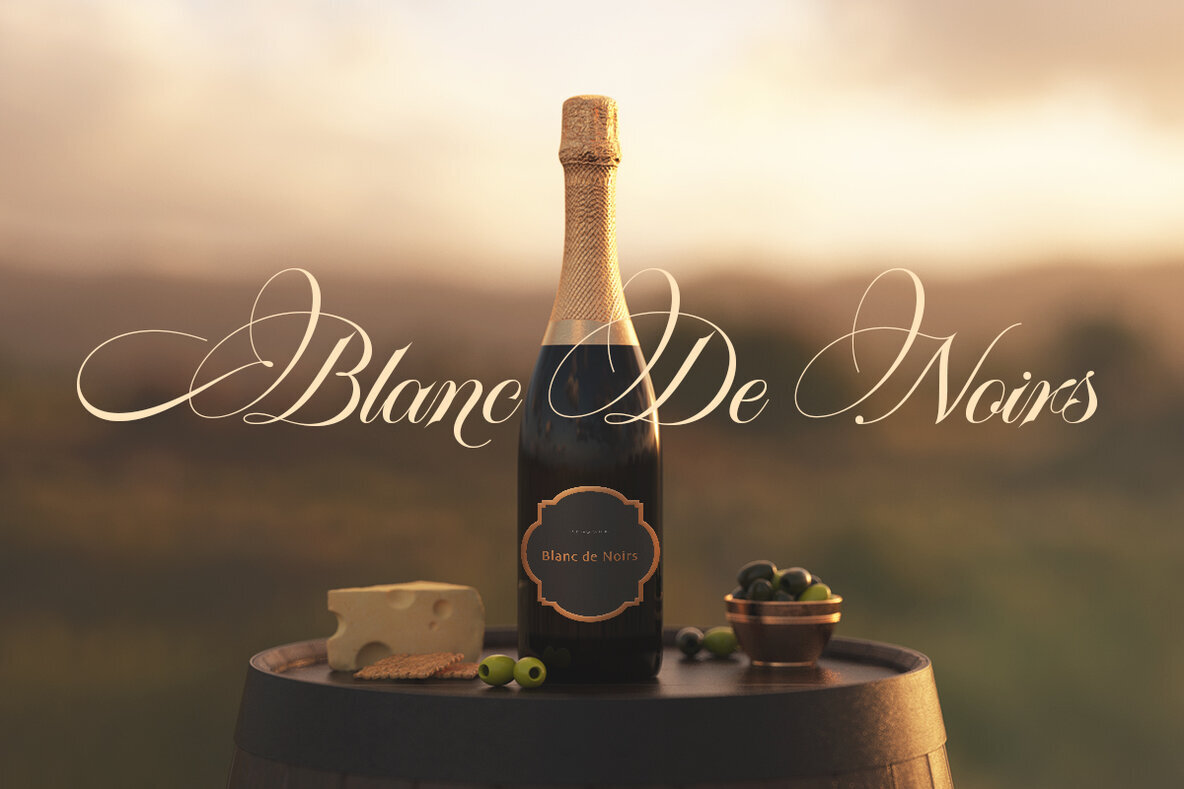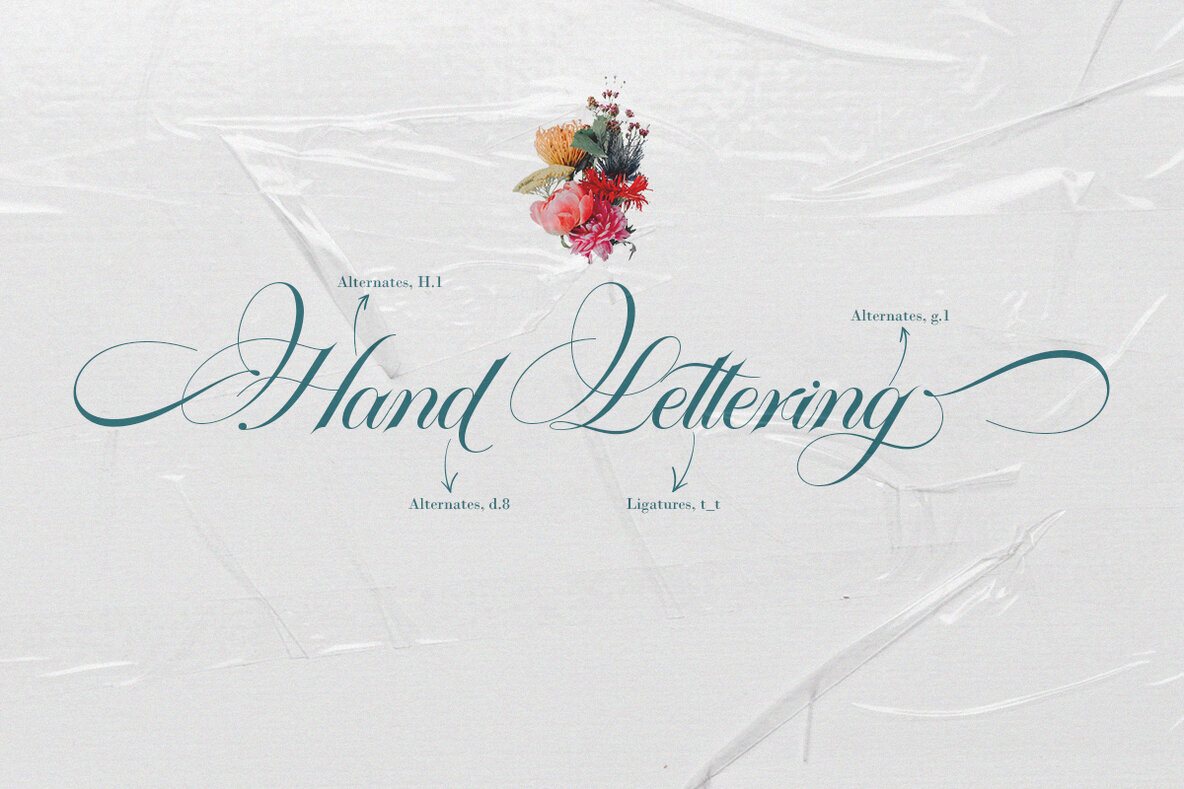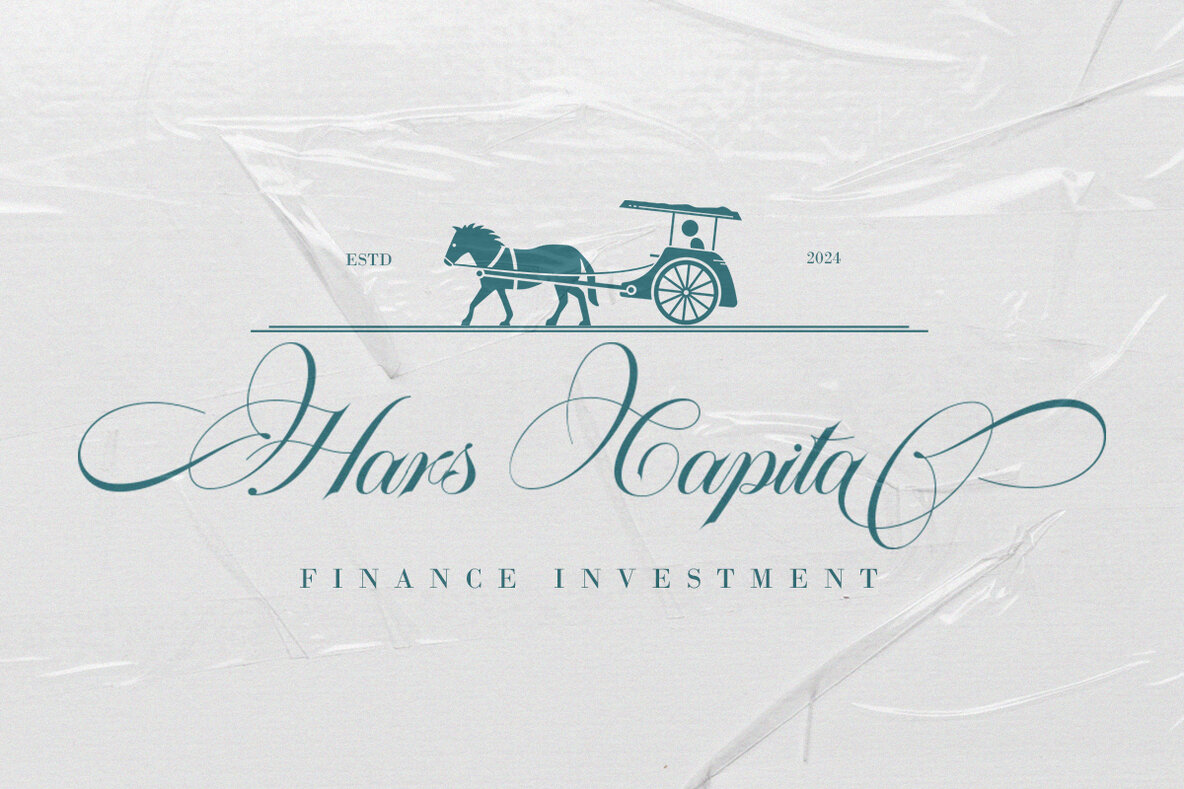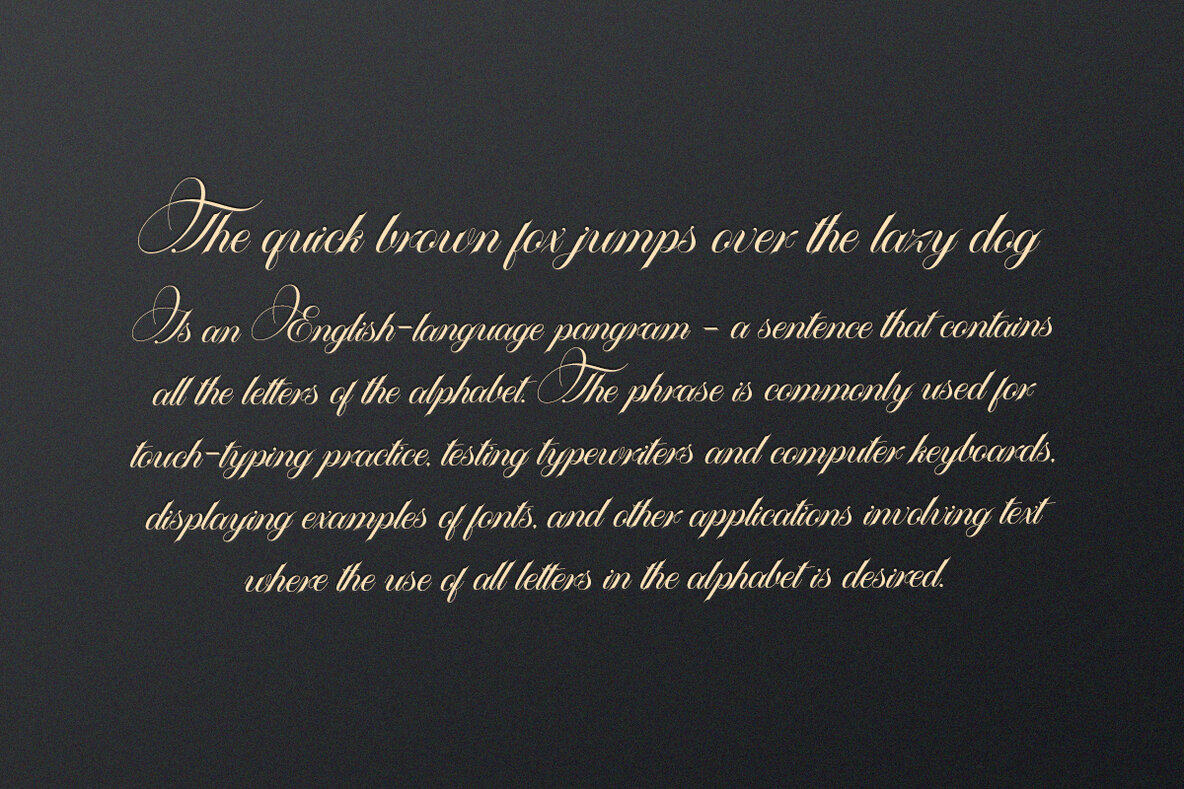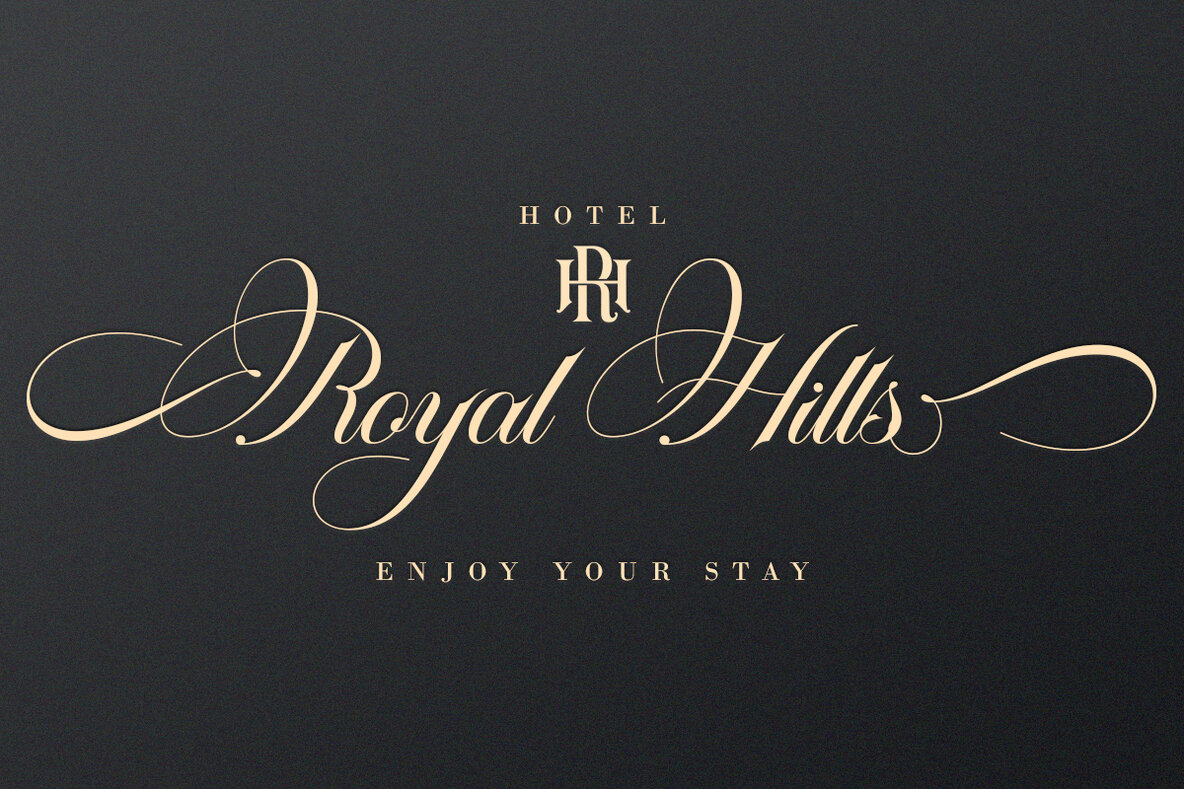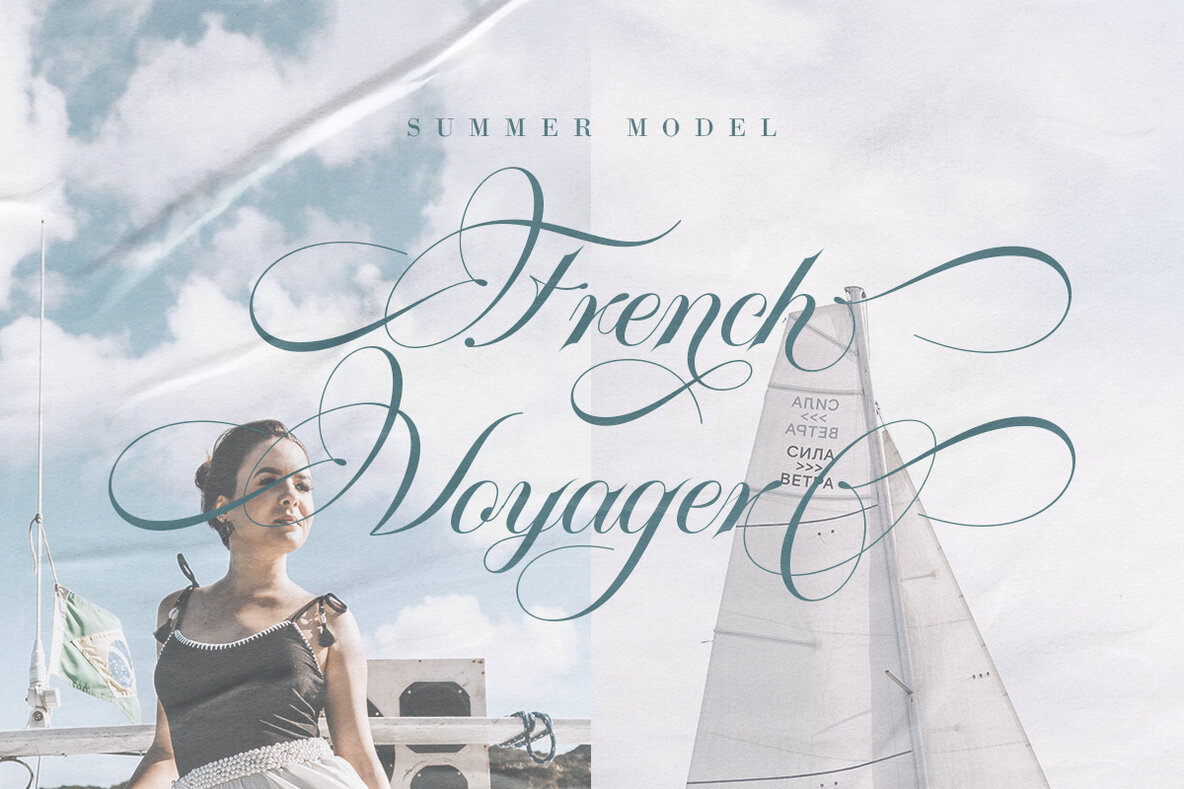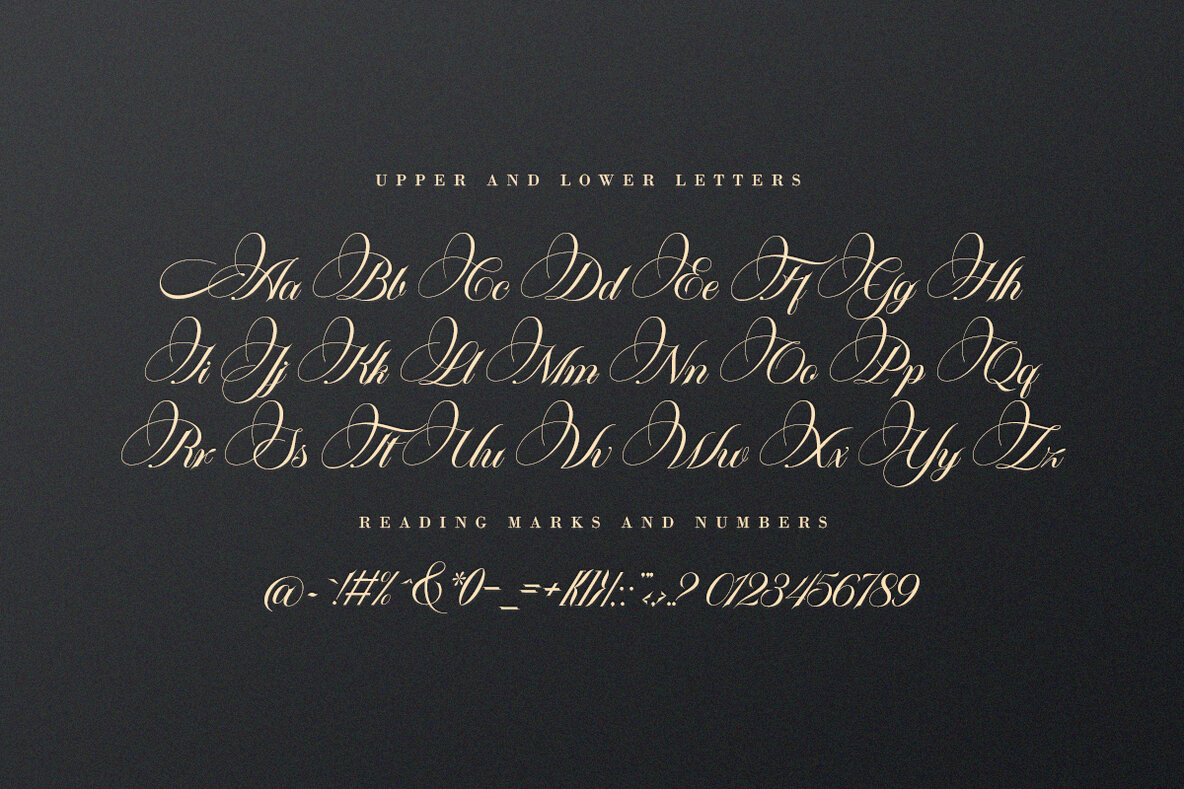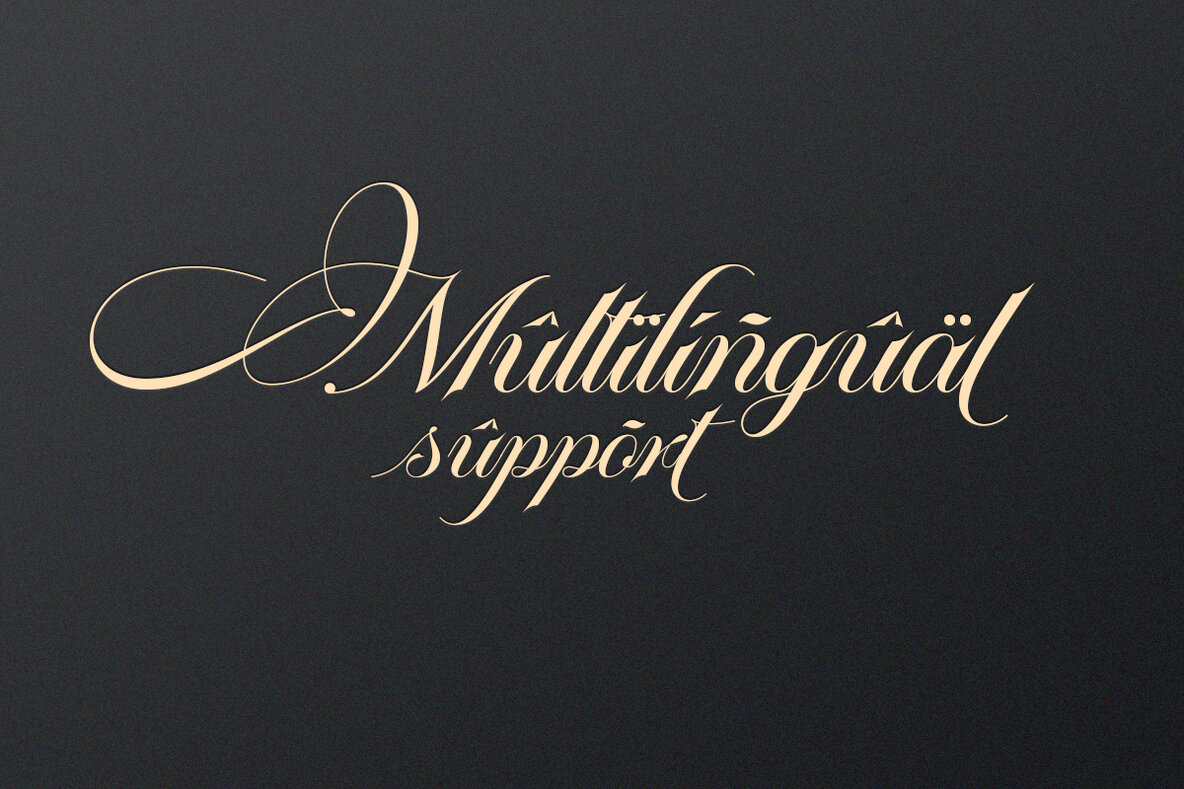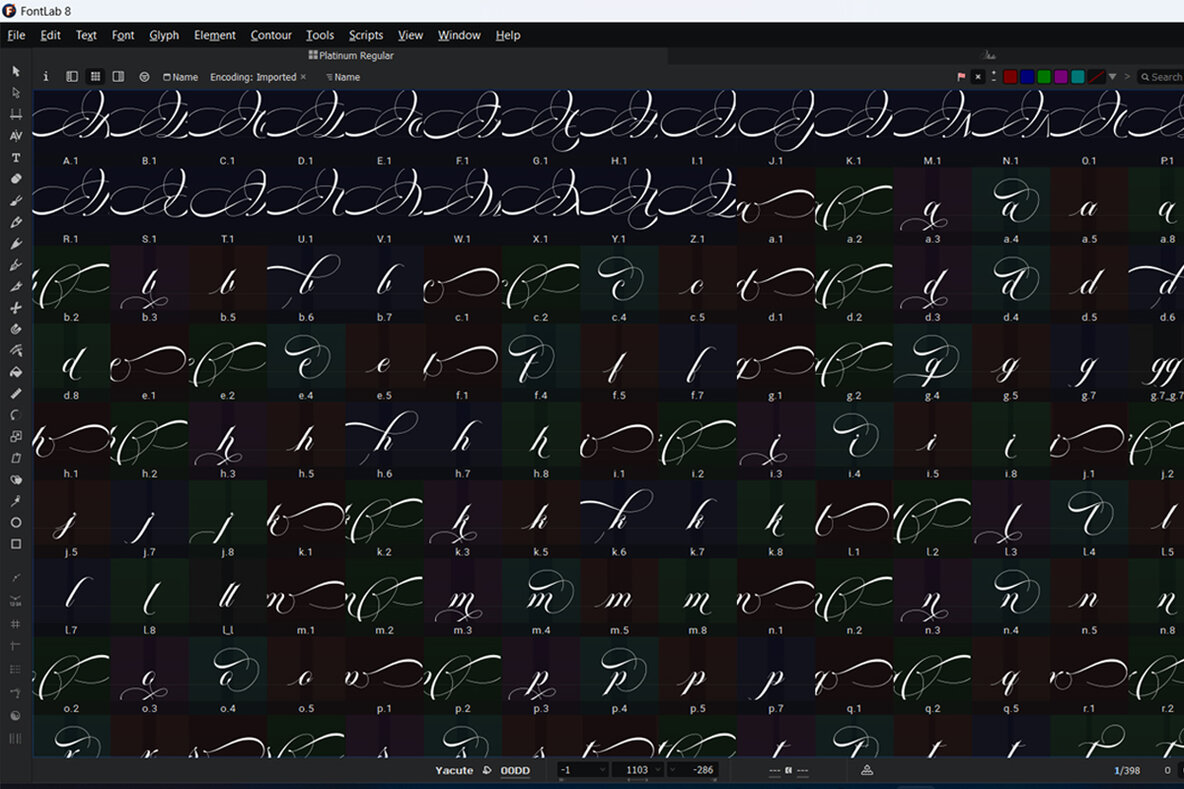
Platinum Script Font
Platinum script Regular
Platinum Script offers a blend of elegance and modernity, making it ideal for a variety of design projects. Its sophisticated style is a perfect match for wedding media, book covers, greeting cards, logos, branding, business cards, and certificates, delivering a classic, formal, or luxurious feel. If your software doesn't support OpenType features, you can access alternative glyphs using Font Book (Mac) or Character Map (Windows). Thank you for choosing Platinum Script to enhance your creative projects!Platinum Script: Elegance in Typography